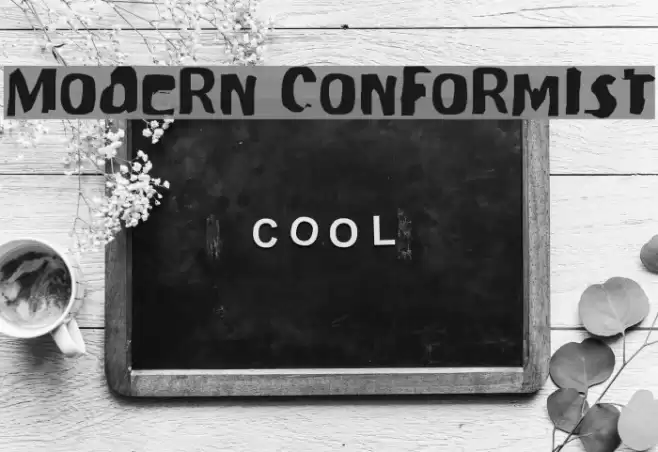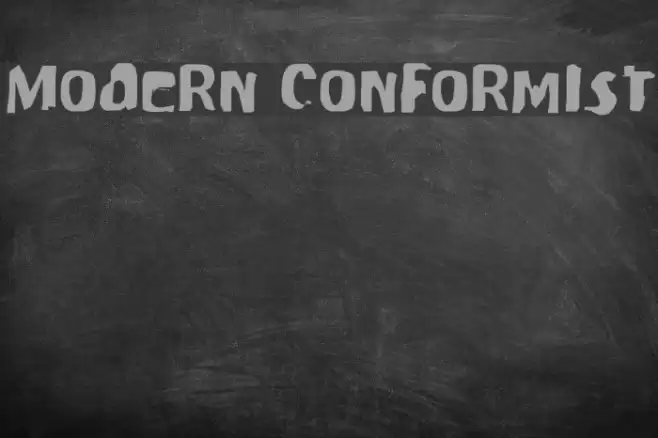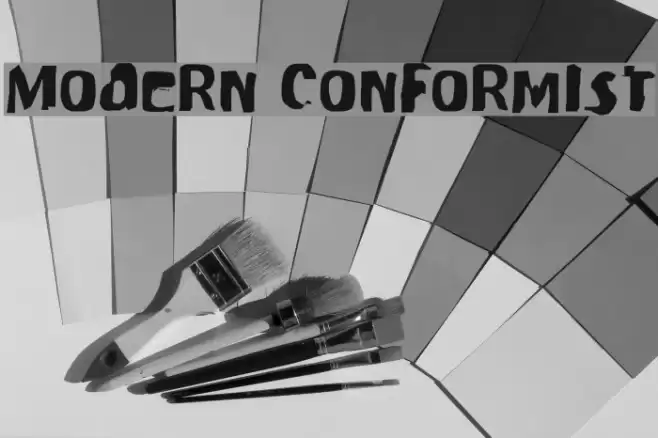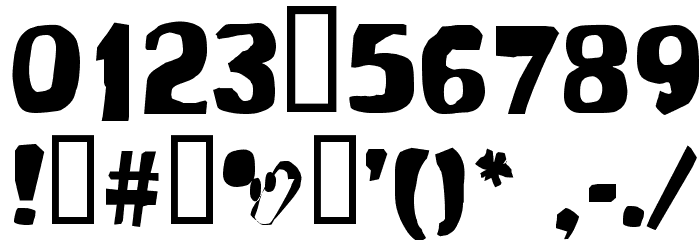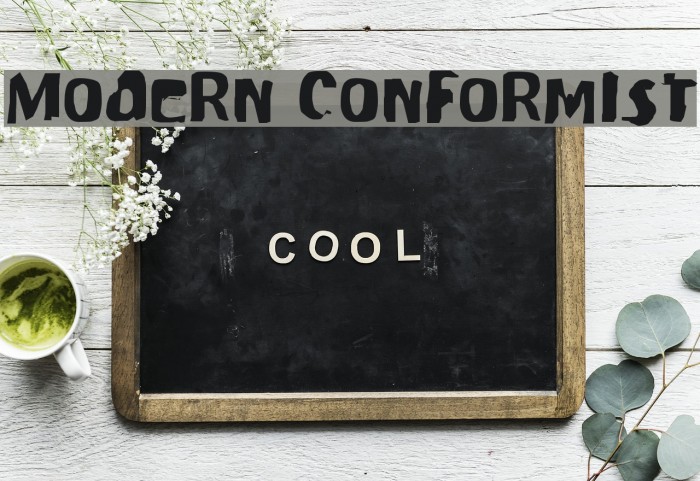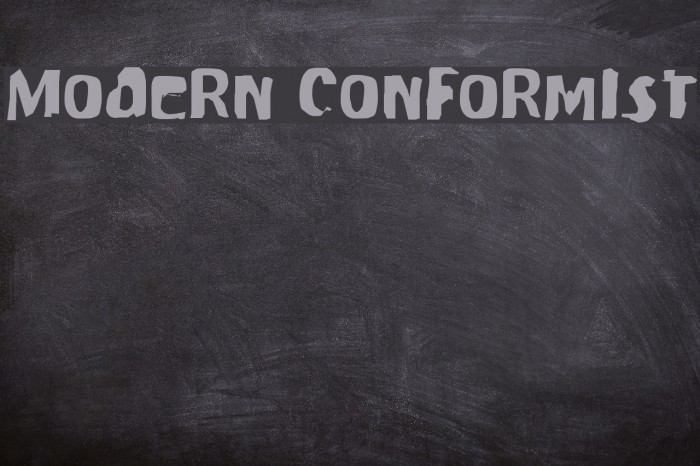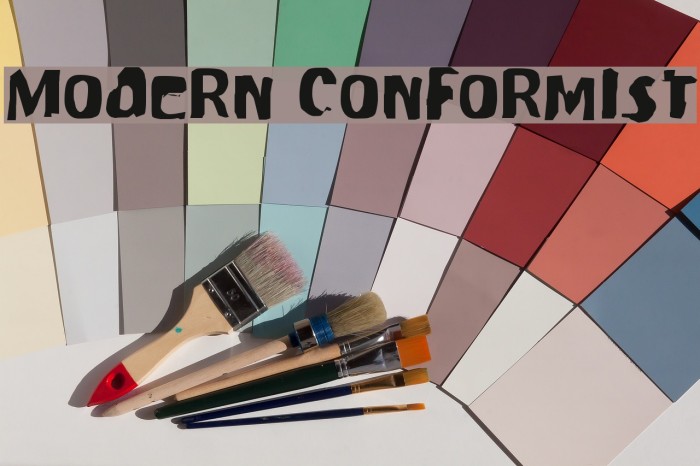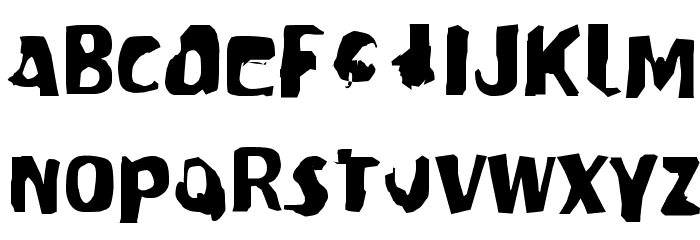
Modern Conformist Font
Modern Conformist Description
This font features a bold and dynamic style with a distinctly modern and edgy appearance. The characters are uniquely shaped with irregular, jagged edges that give a sense of movement and energy. The uppercase and lowercase letters maintain a consistent weight, providing a strong visual impact. The numbers and special characters follow the same design ethos, ensuring a cohesive look across all glyphs. This font's unconventional design makes it stand out, ideal for projects that require a bold statement.
A bold, edgy font with irregular, jagged edges for a modern look from Distorted Eroded fonts.
- Proposed Projects: Ideal for album covers, posters, branding for edgy or modern products, and any design needing a bold, standout typeface.
- Overall Style: Modern, Edgy